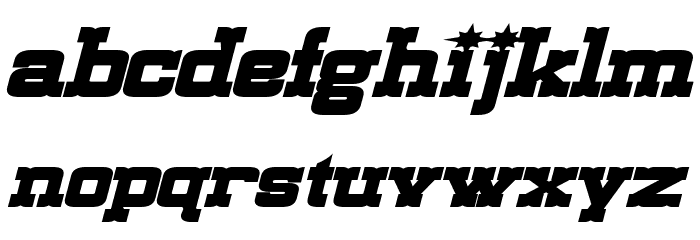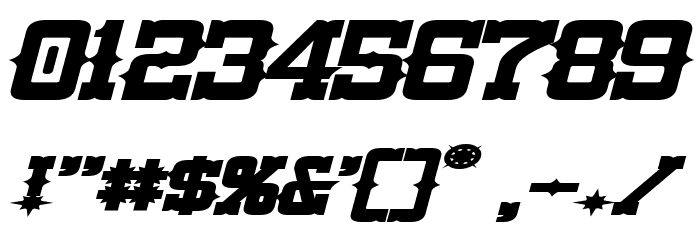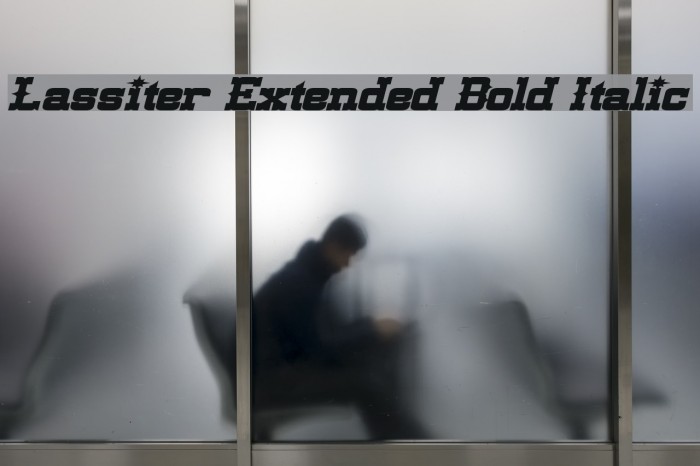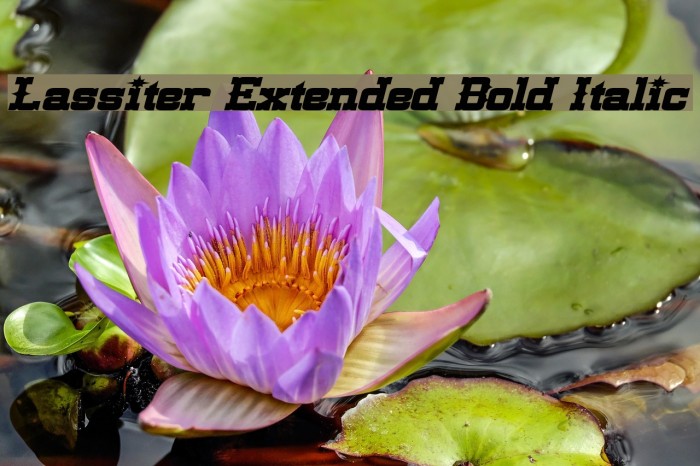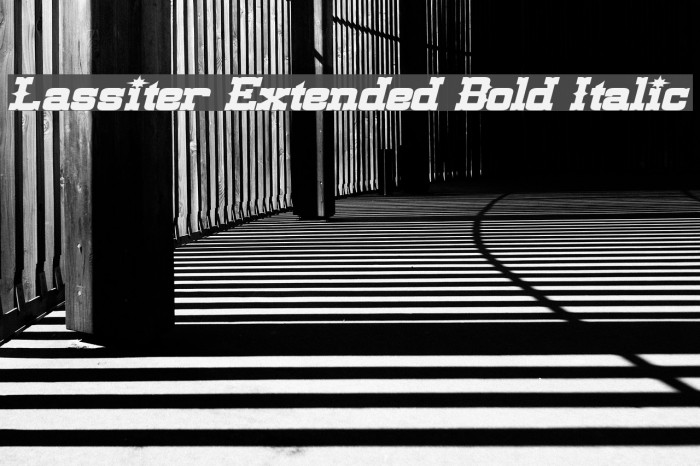
Lassiter Extended Bold Italic Font
This font features a bold and dynamic style with an extended width and italic slant, giving it a strong and impactful presence. The characters are designed with sharp, angular edges and a slightly futuristic look, making them stand out prominently. The uppercase and lowercase letters maintain a consistent style, with the lowercase exhibiting a slightly more compact form. The numerals are equally bold and follow the same angular design, ensuring uniformity across the font. Special characters are crafted with the same attention to detail, providing a cohesive and versatile typeface.
A bold, extended, and italic font with sharp, angular edges and a futuristic style.
- Font: Lassiter Extended Bold Italic
- Weight: Bold Italic
- Proposed Projects: Ideal for projects requiring a strong visual impact, such as posters, logos, video game graphics, and branding materials.
- Width: Expanded